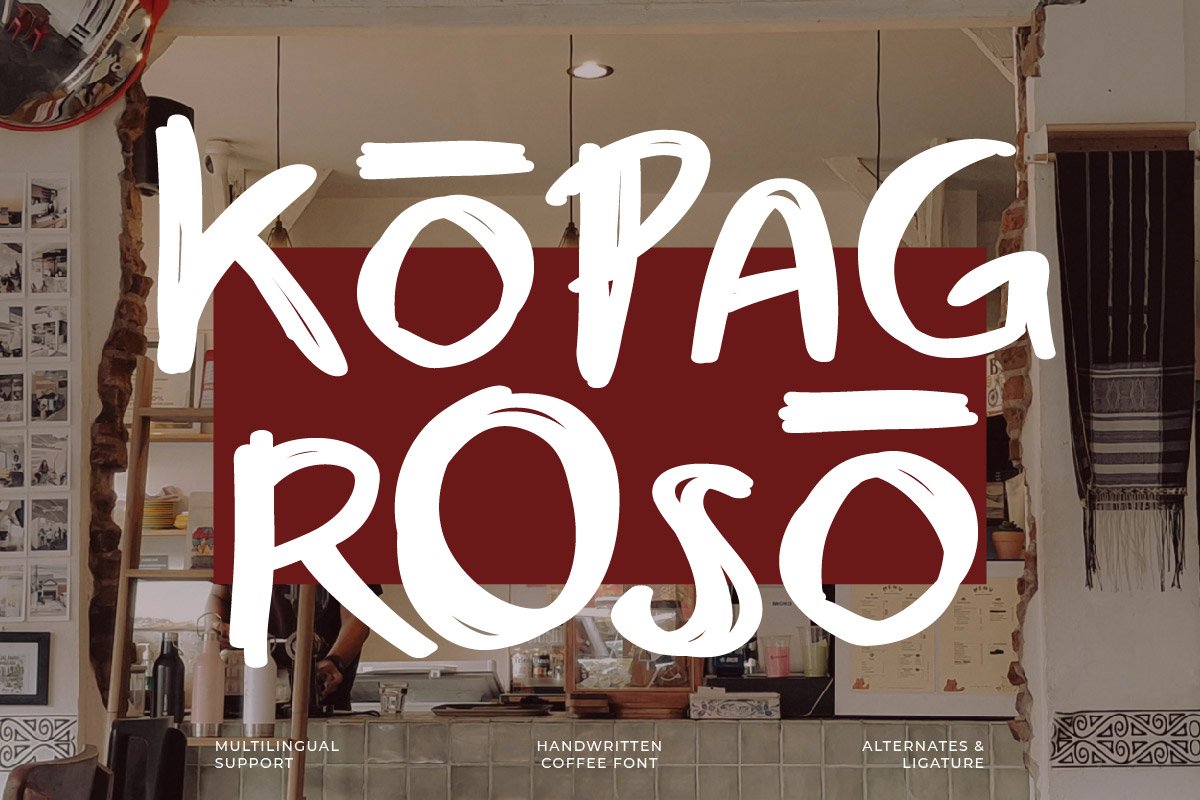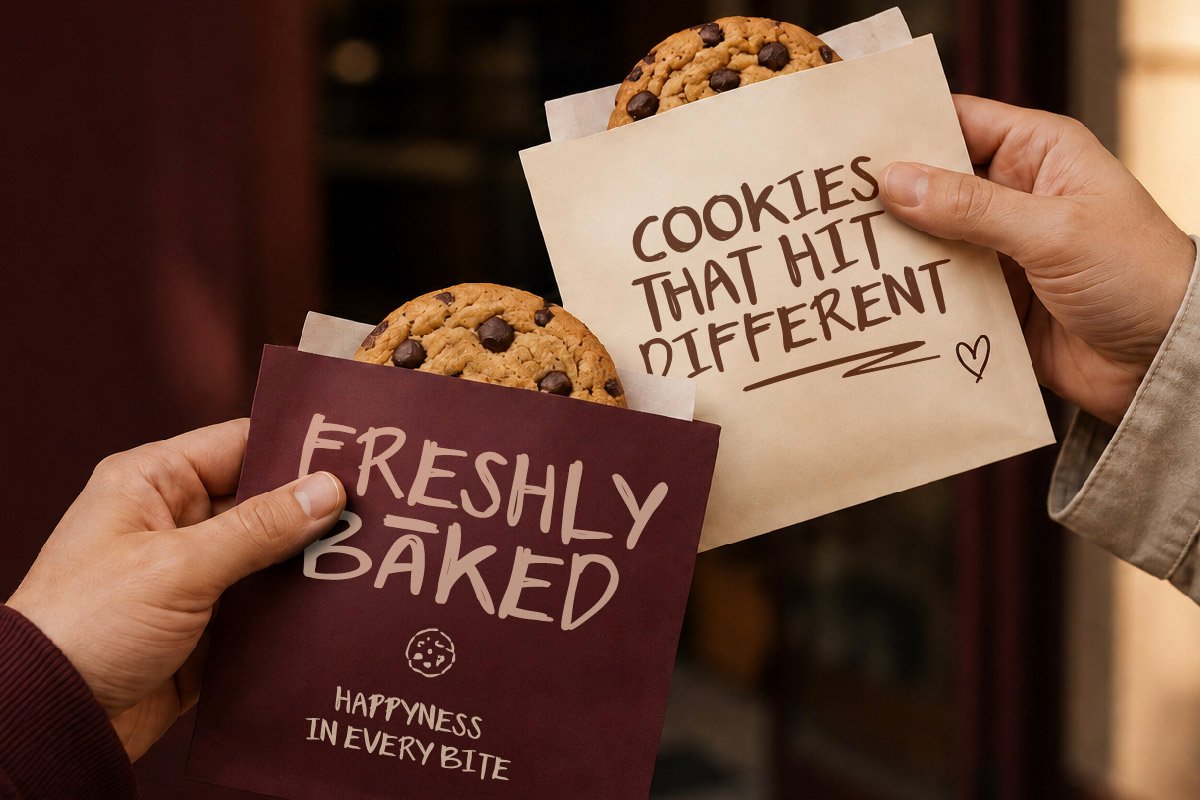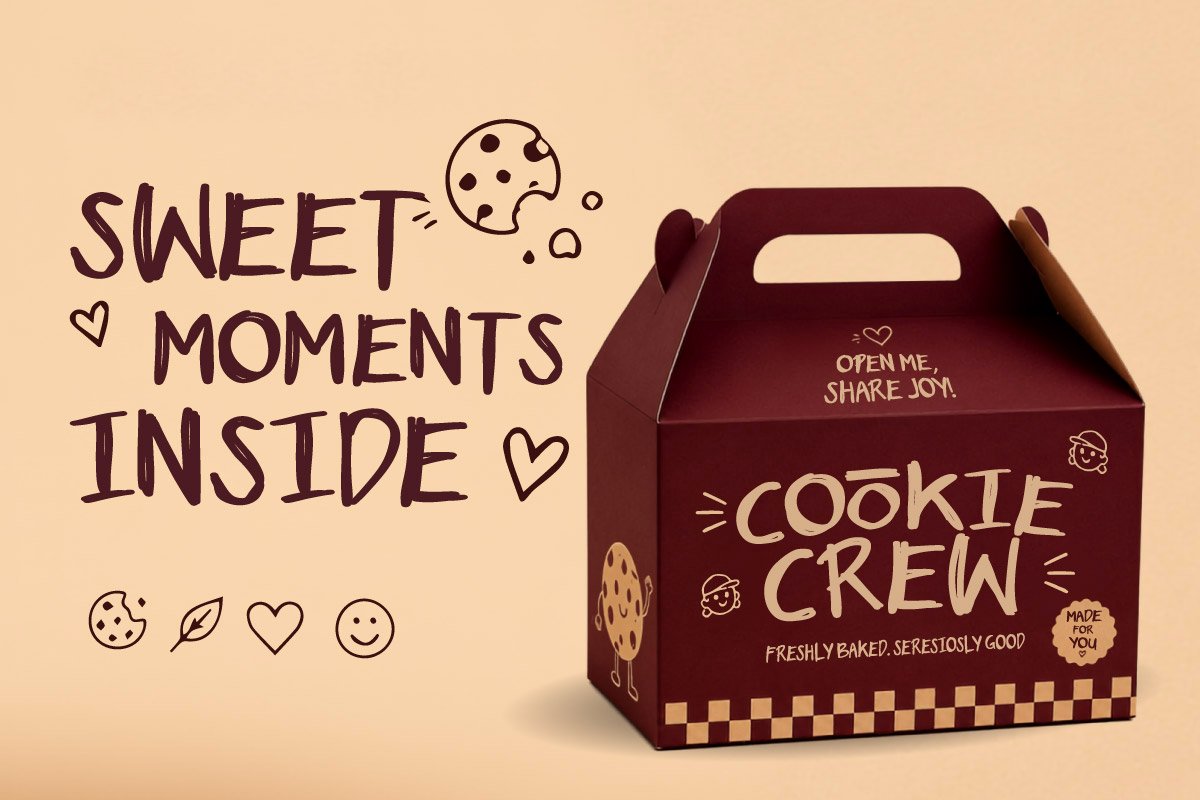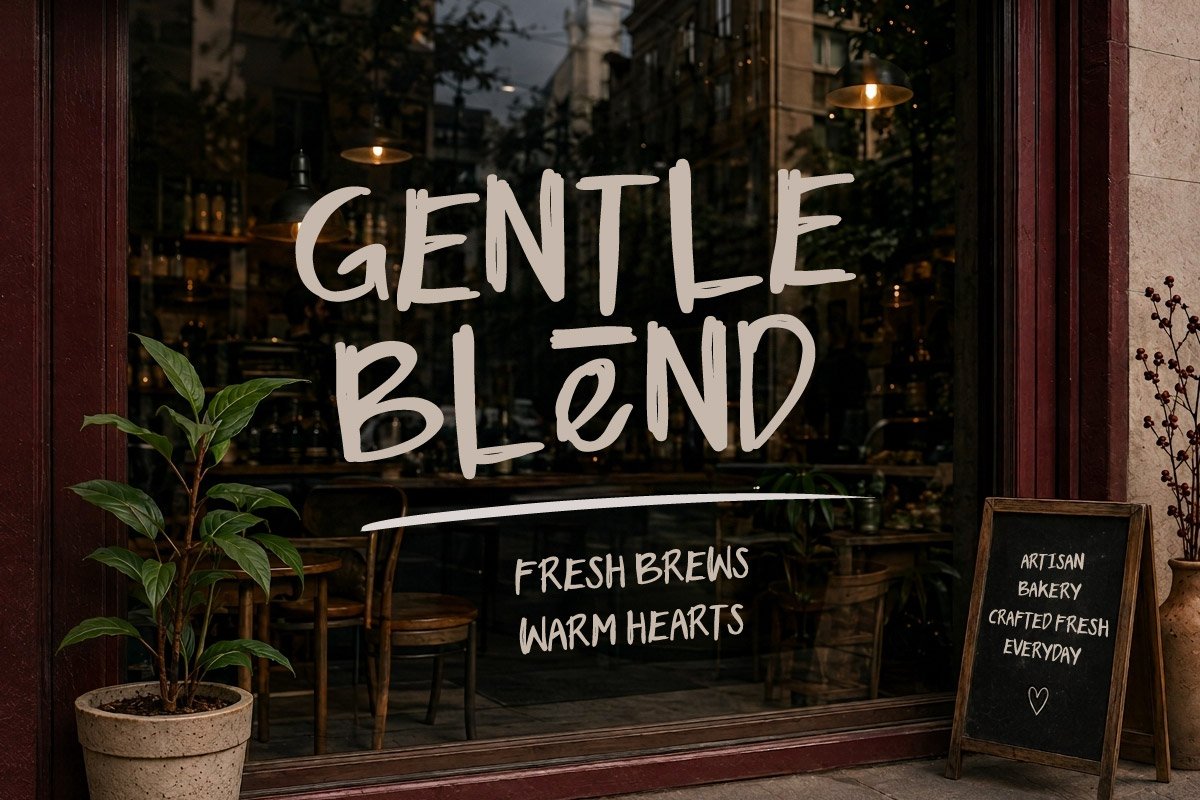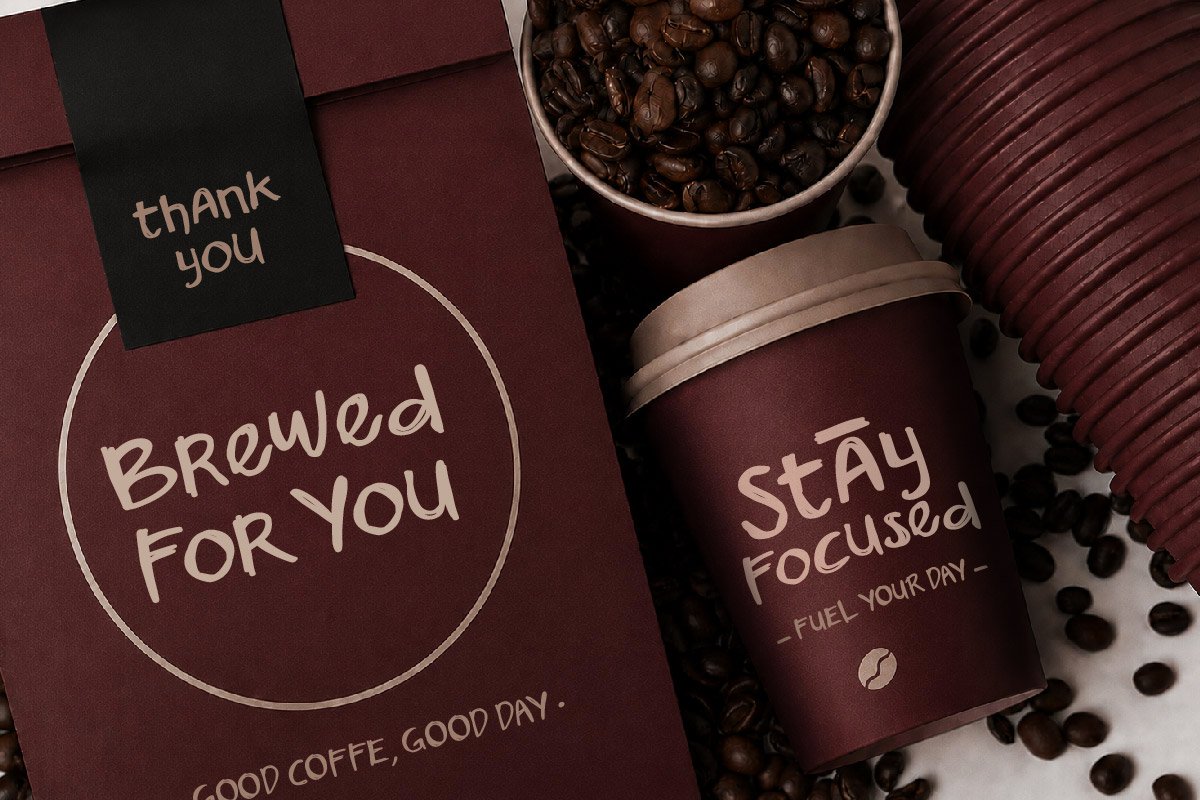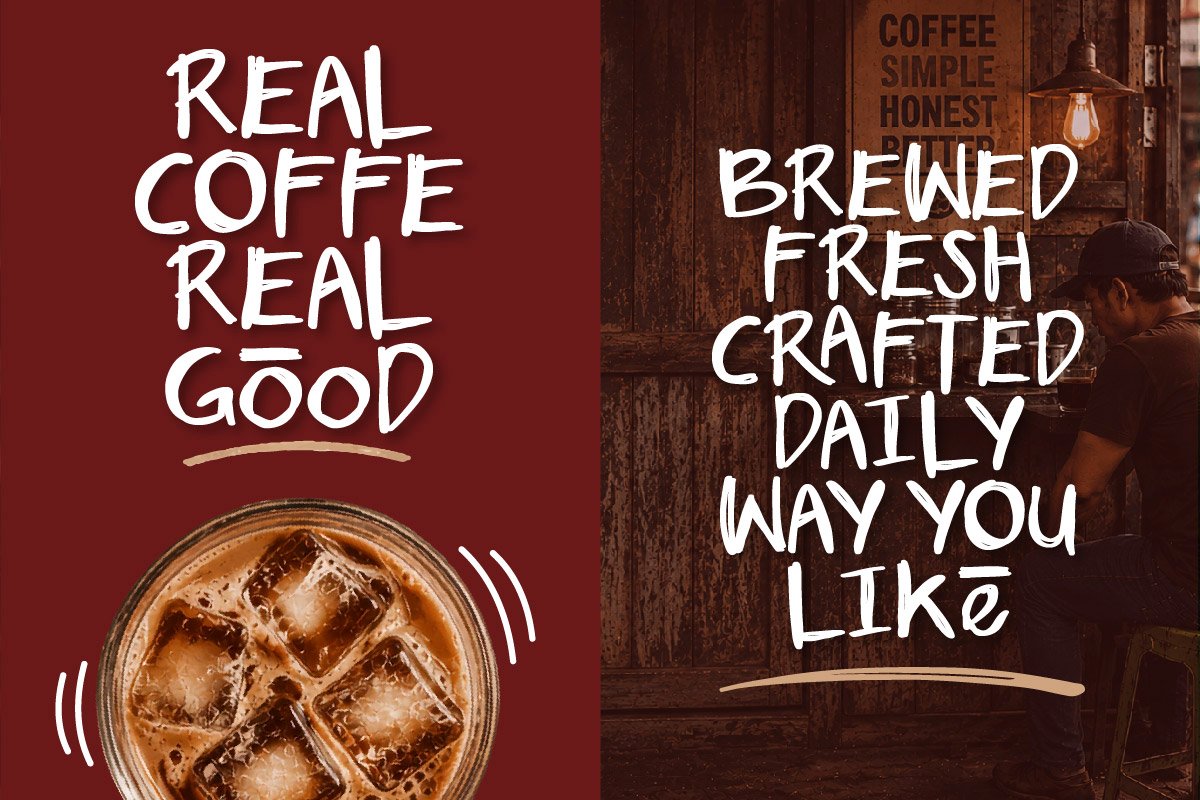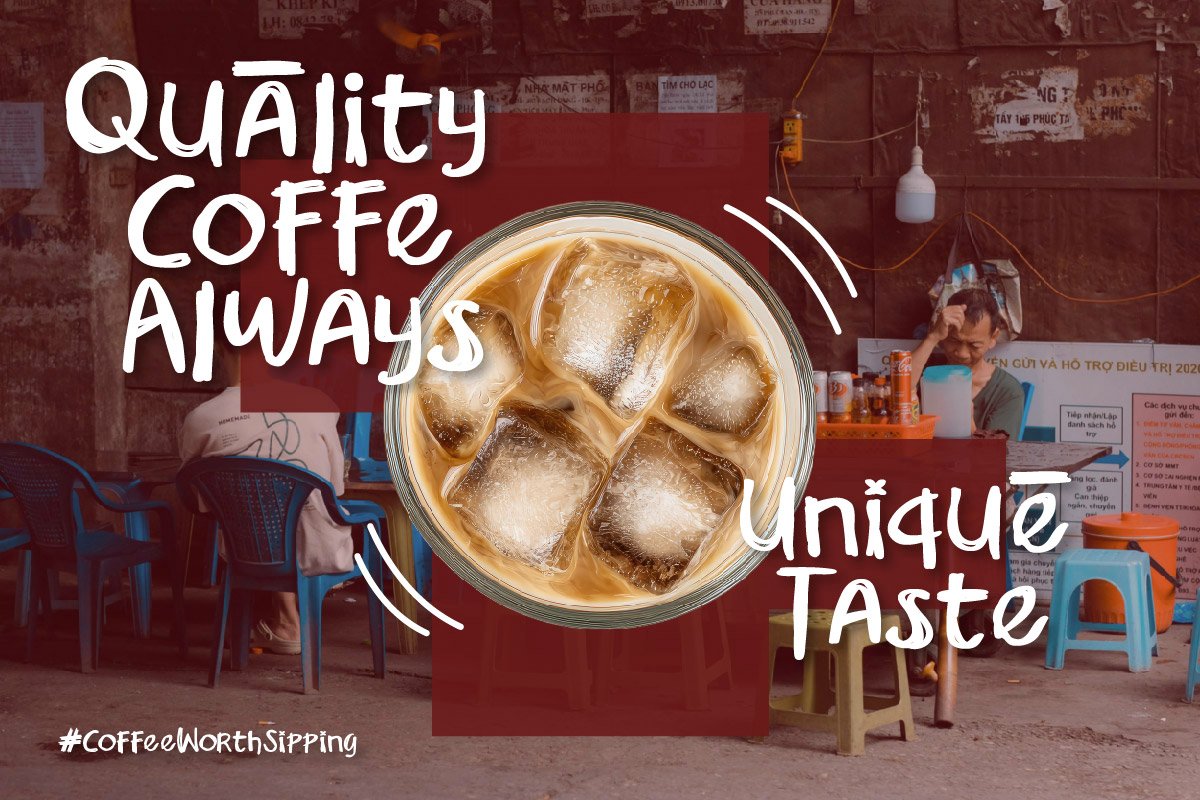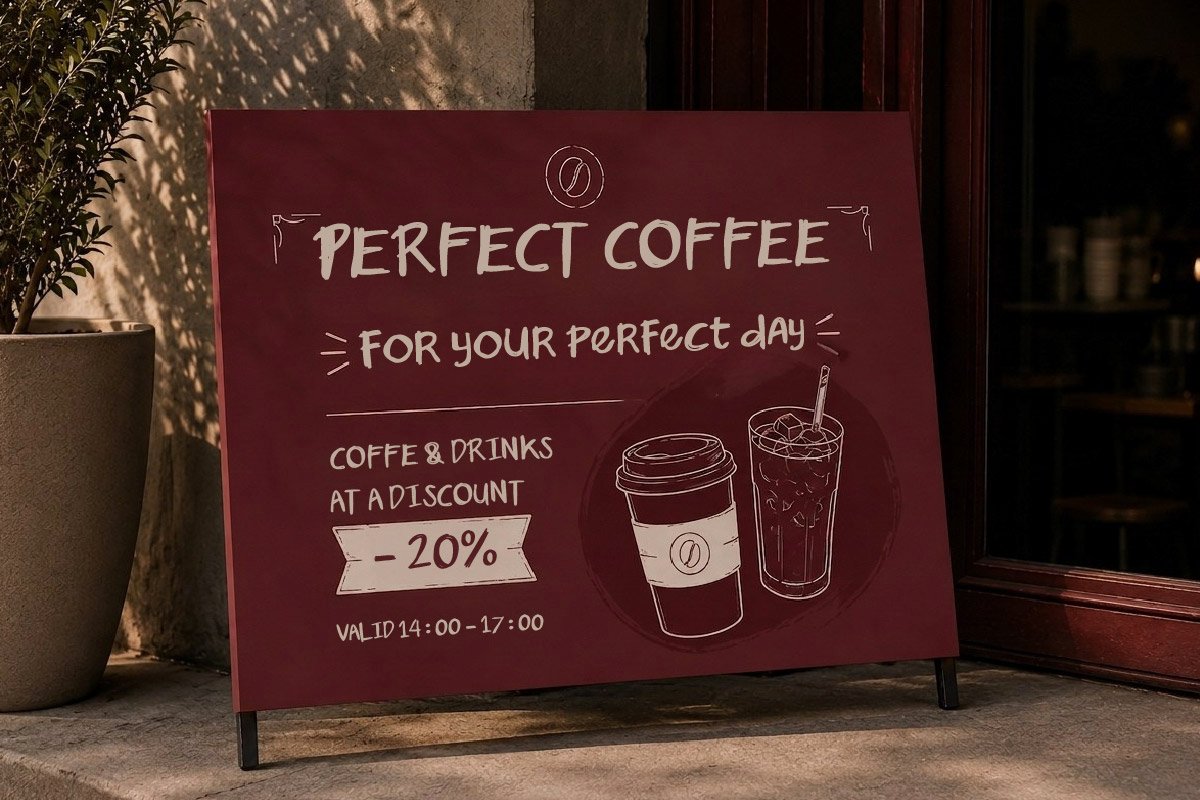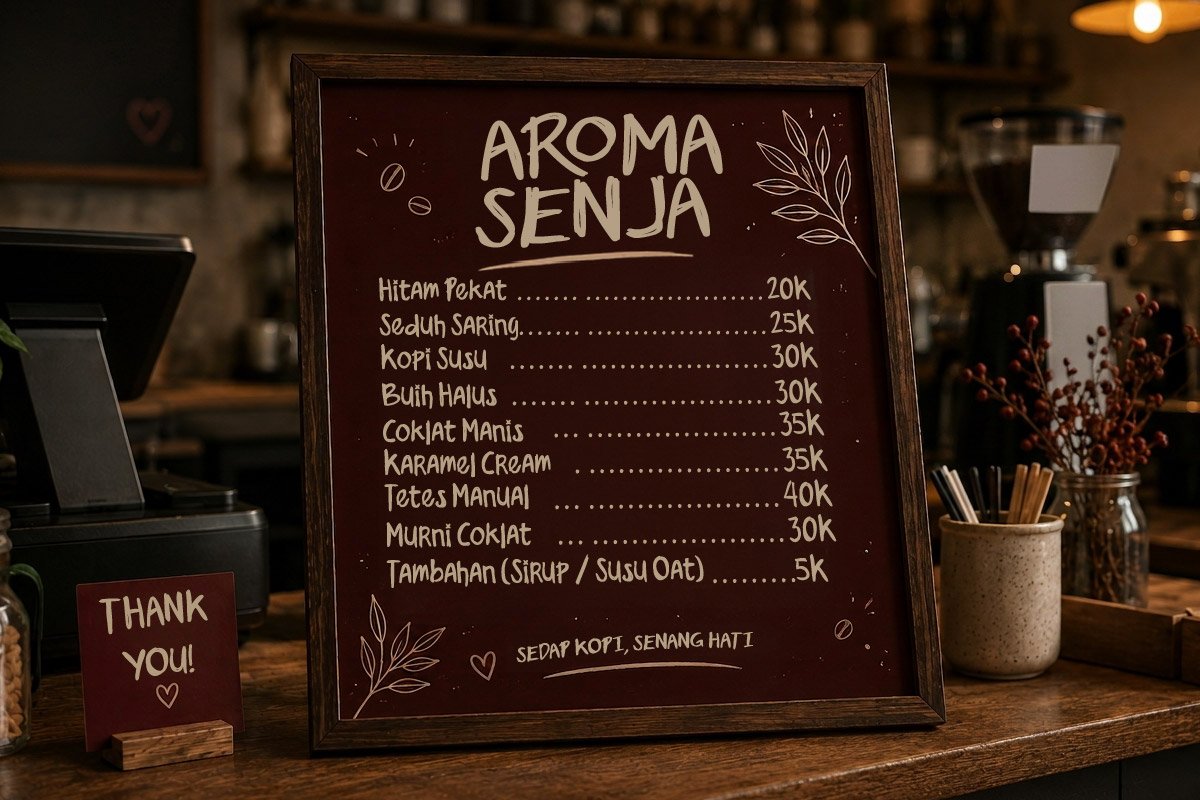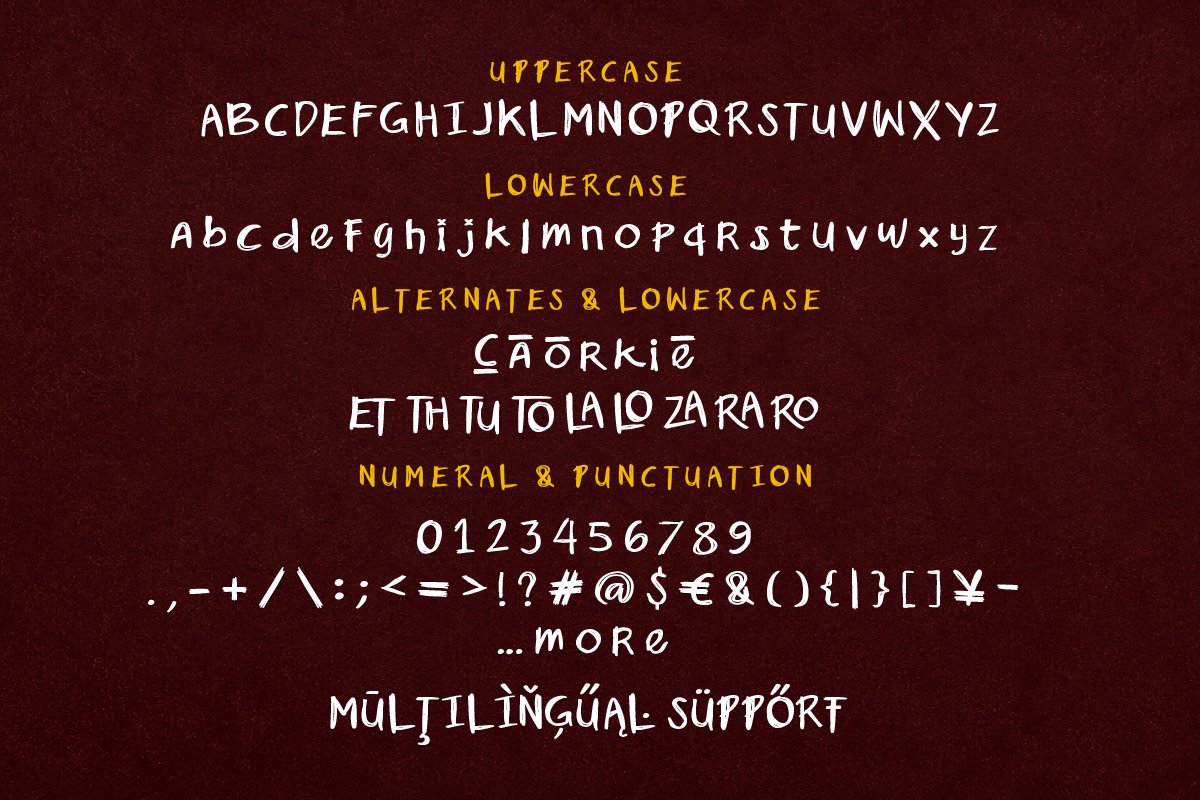
Kopag Roso – Handwriting Coffe Font
Kopag Roso is a warm, playful, and organic handwriting typeface created to bring an authentic personality to coffee and culinary branding. Its expressive letterforms create a handmade, friendly, and cozy feeling, making it a great choice for businesses looking to build a welcoming and memorable visual identity.
Inspired by the atmosphere of coffee shops, local roasteries, bakeries, and artisanal culinary brands, Kopag Roso works beautifully for logos, coffee shop signage, menus, packaging, promotional artwork, and various branding projects. Its casual yet distinctive character adds a personal craft-inspired touch to any design.
Use Kopag Roso to create visuals that feel warm, relaxed, creative, and appetizing. Perfect for coffee branding, bakery packaging, café identity, menu design, product labels, merchandise, and social media content that needs a memorable handwritten personality.